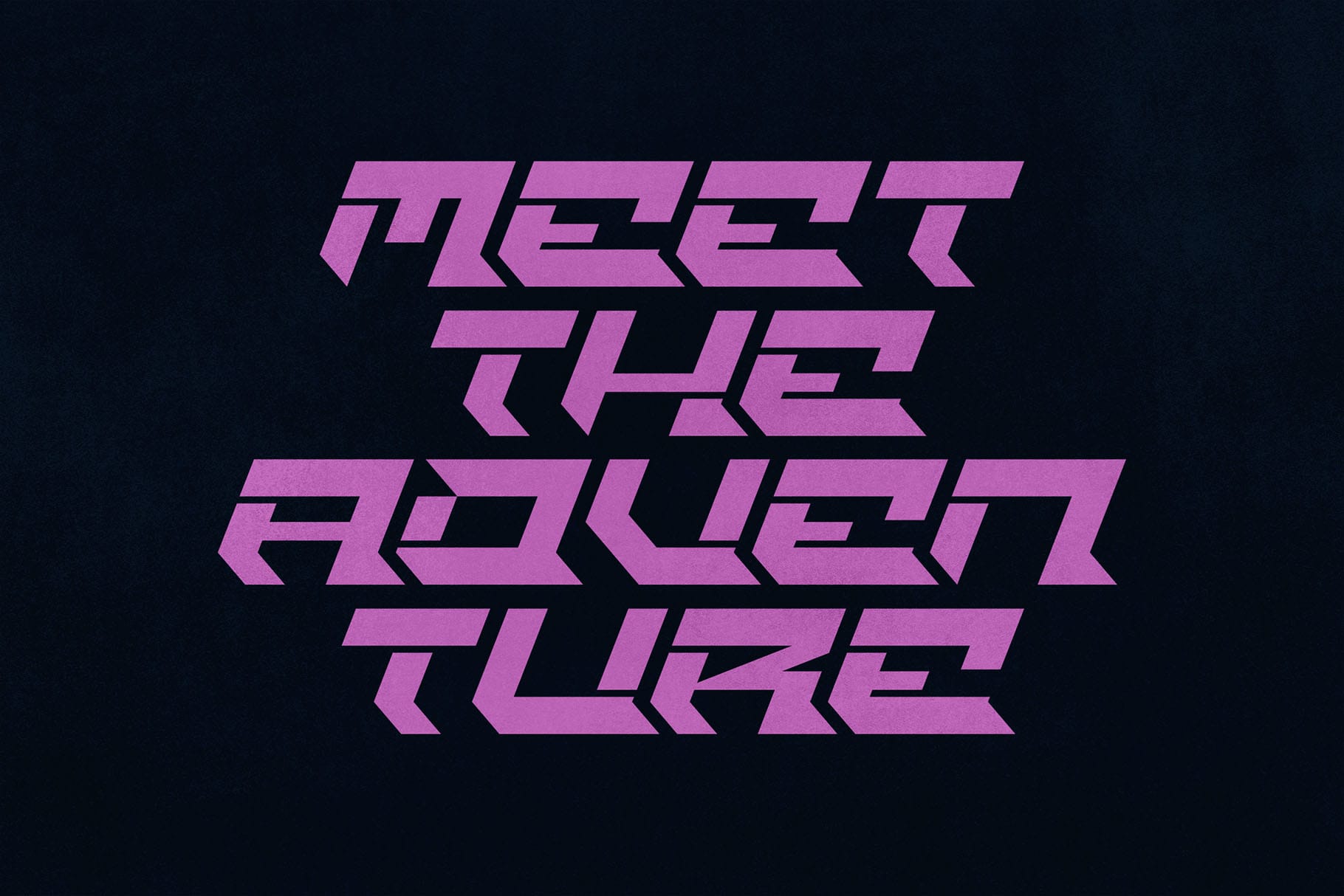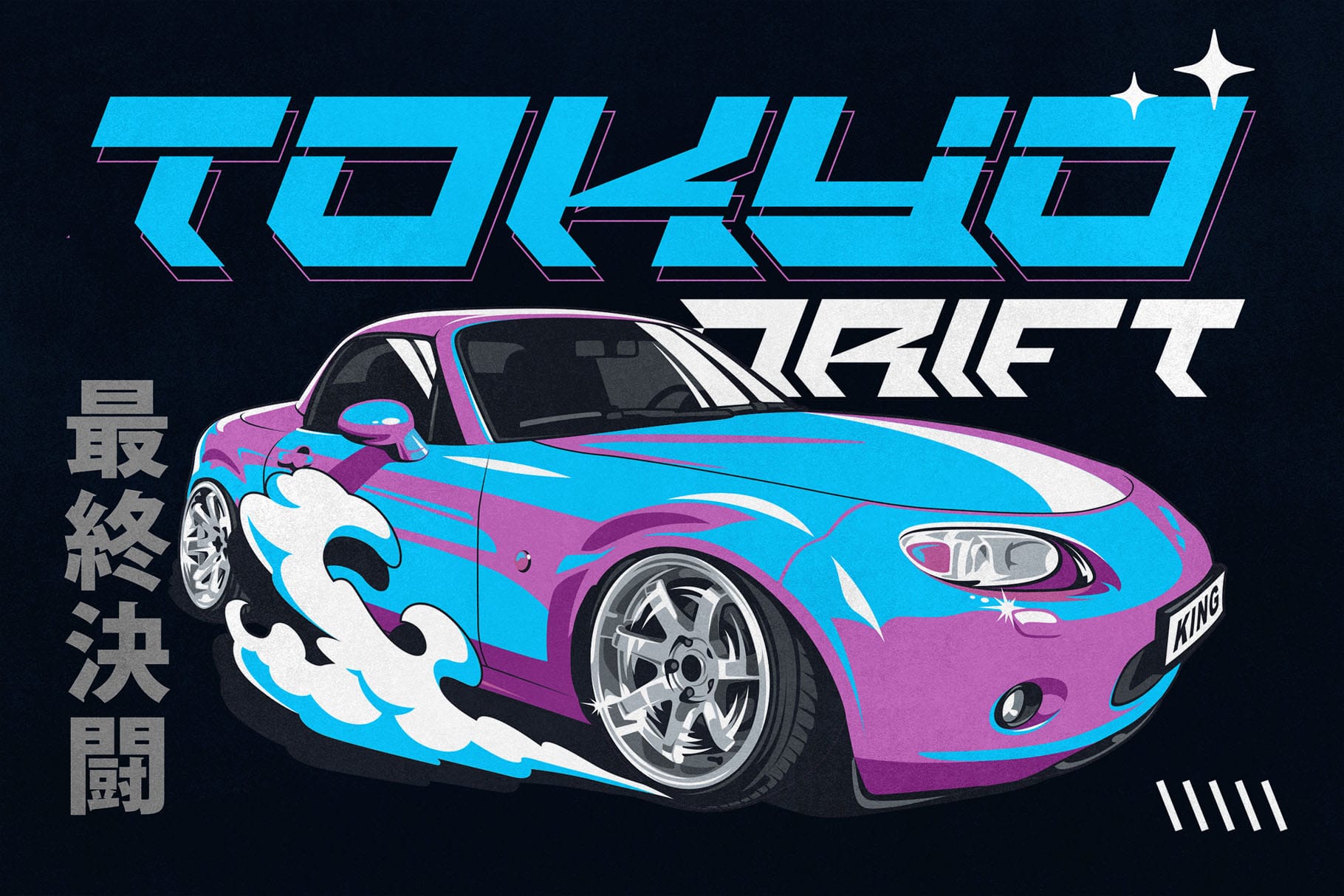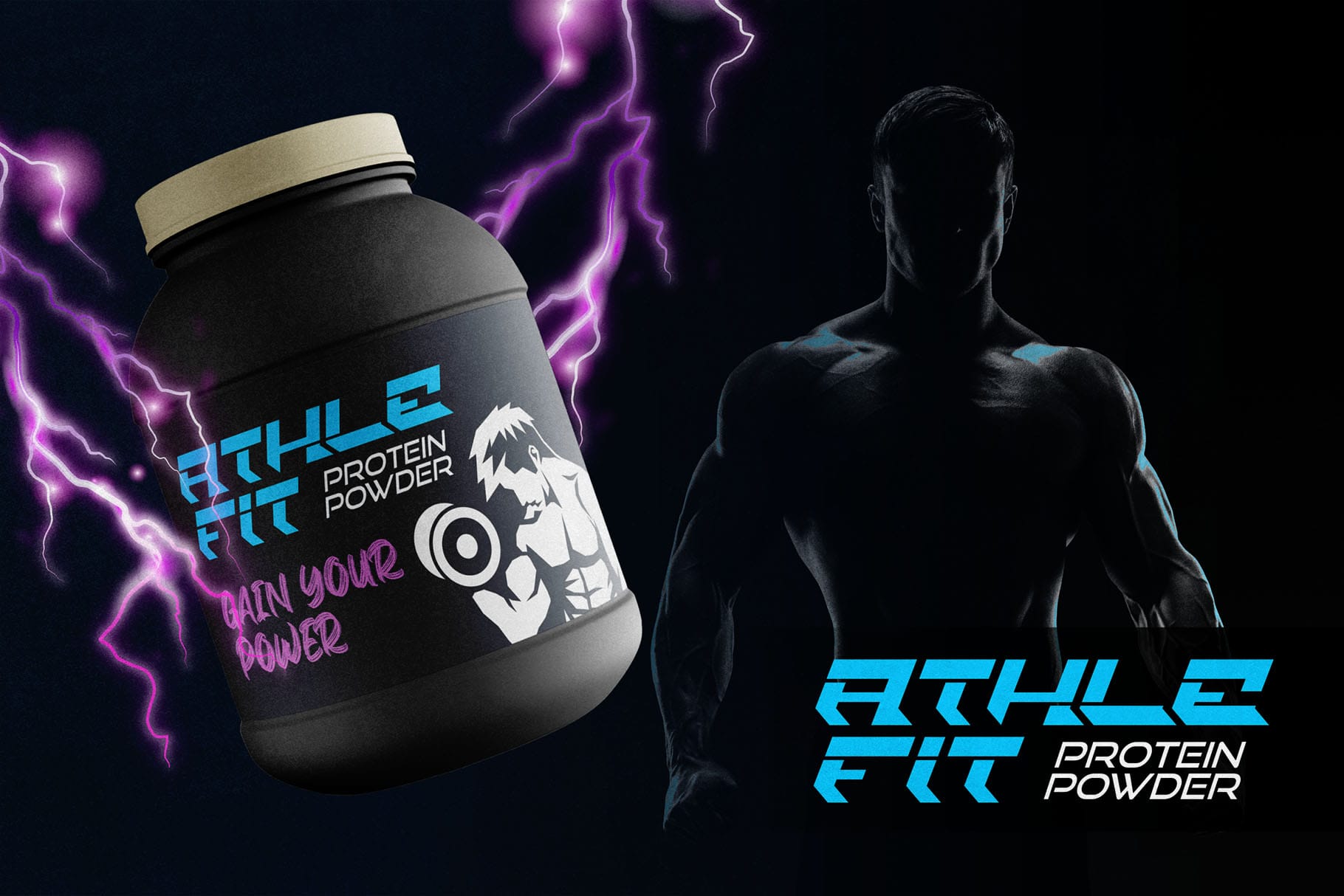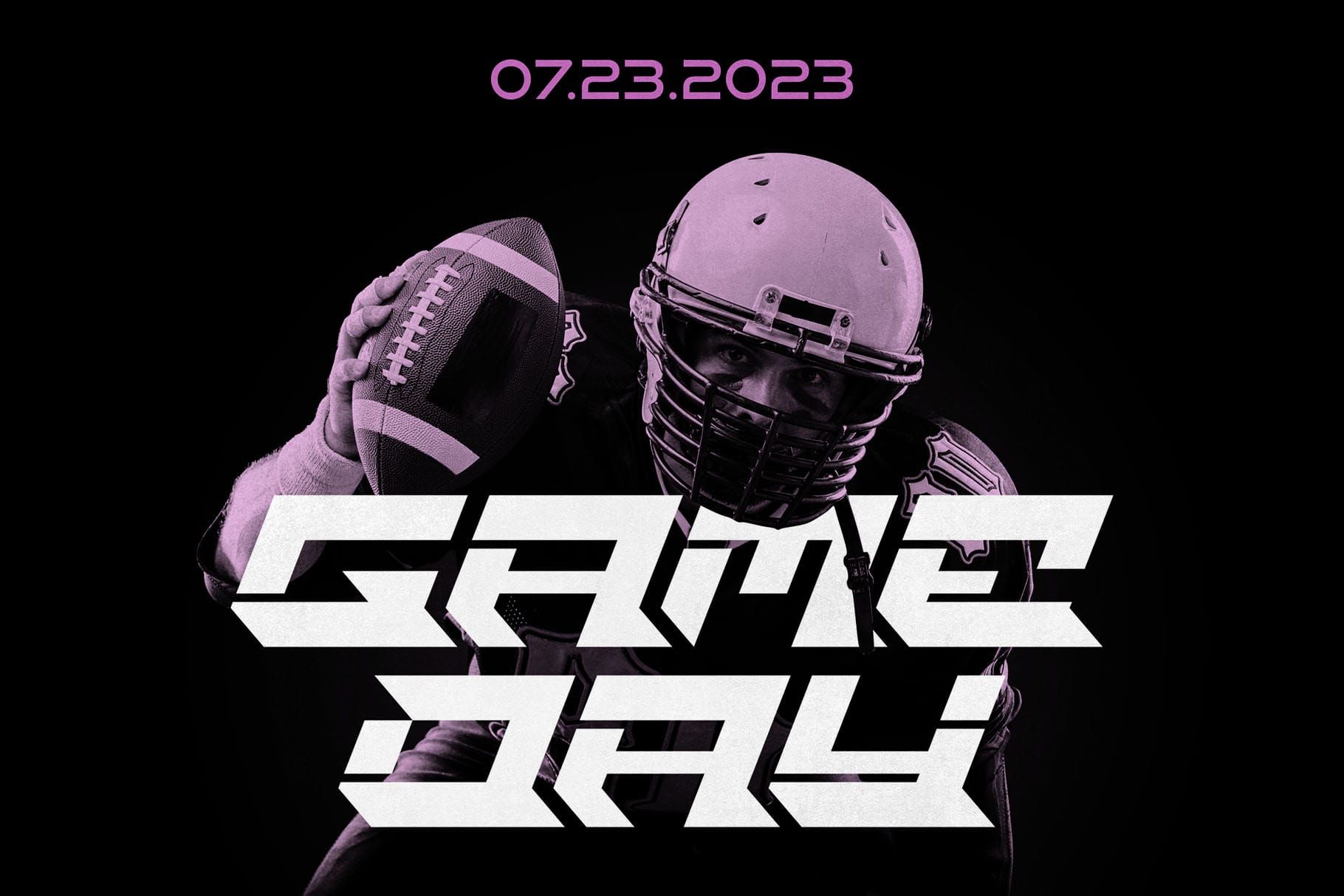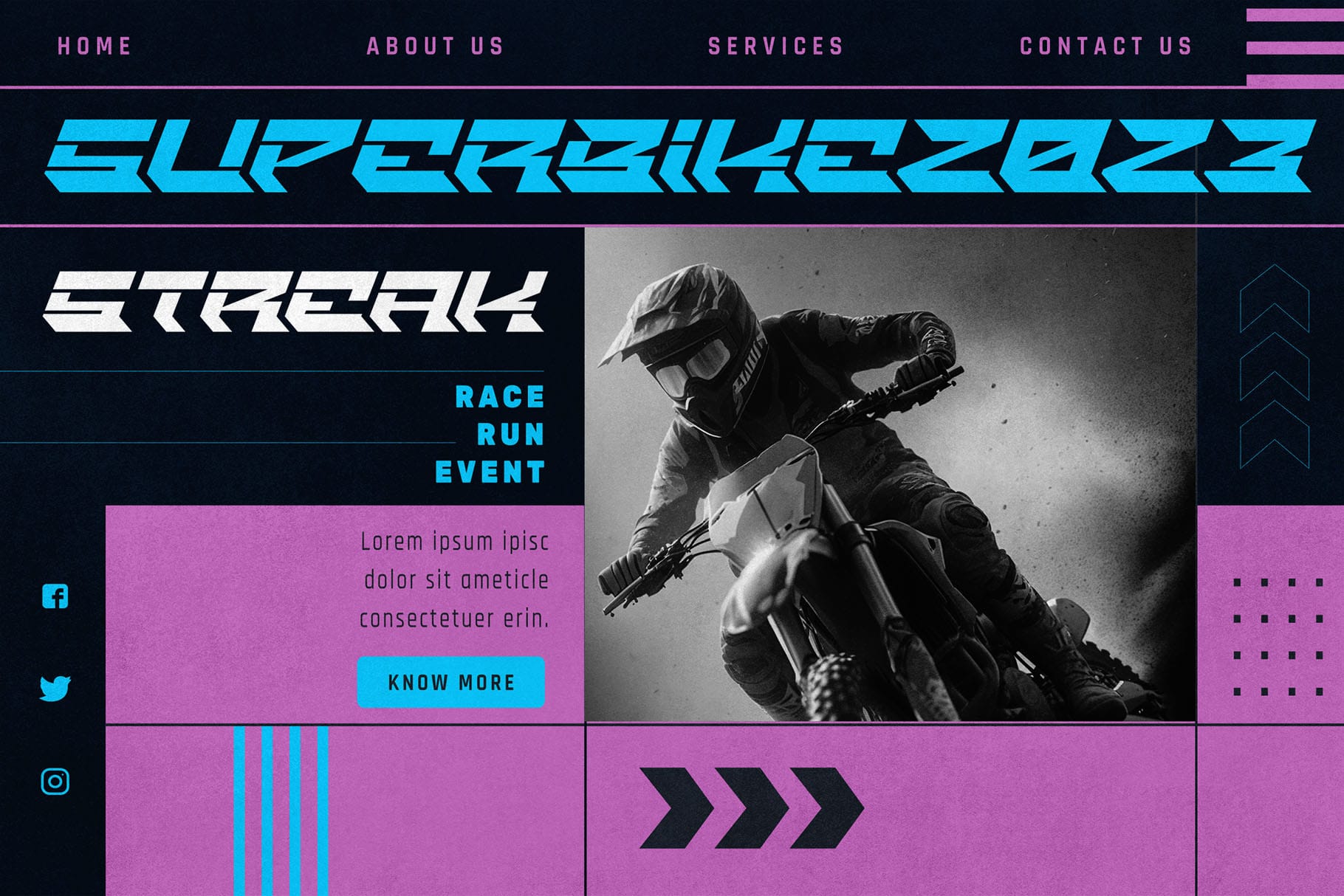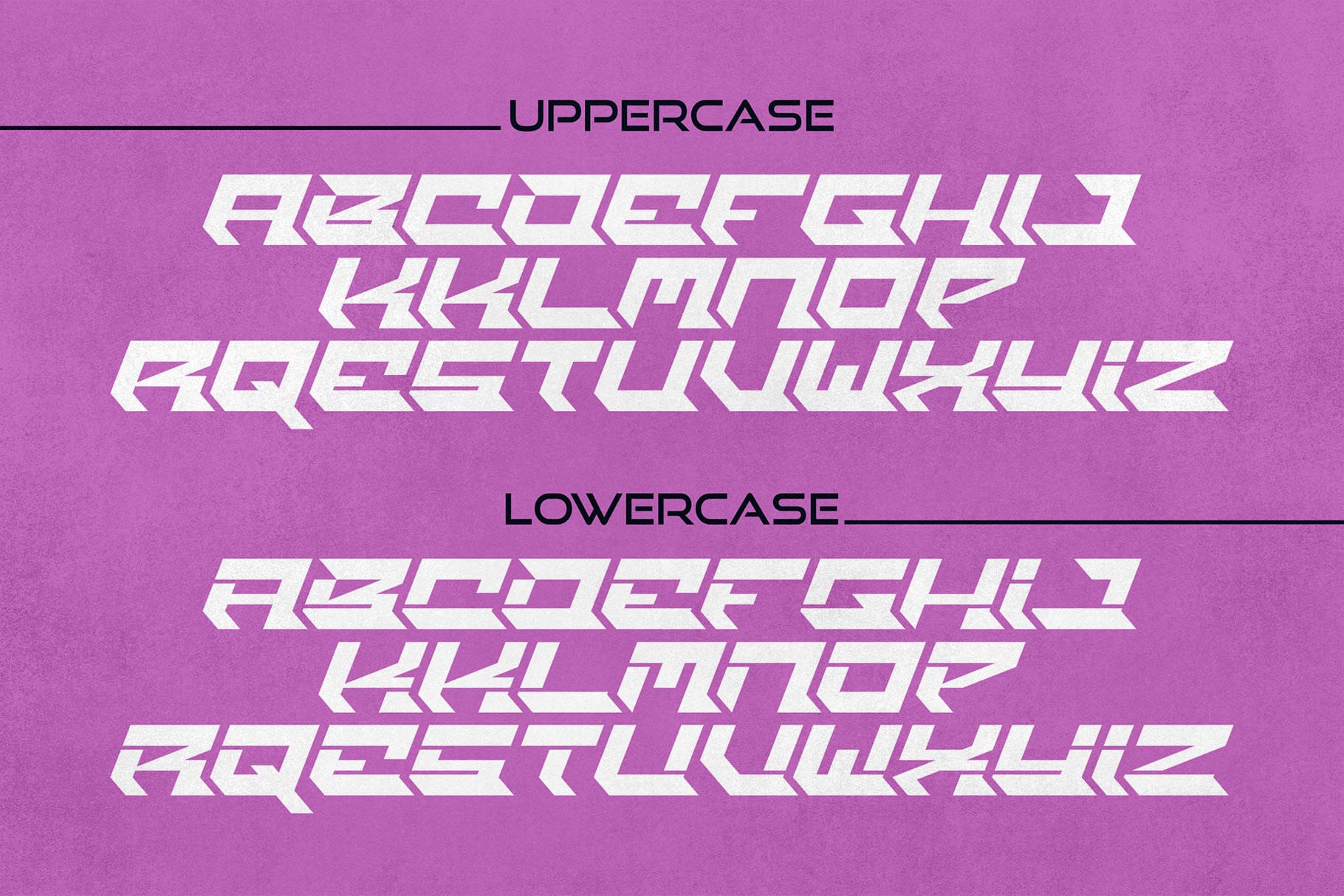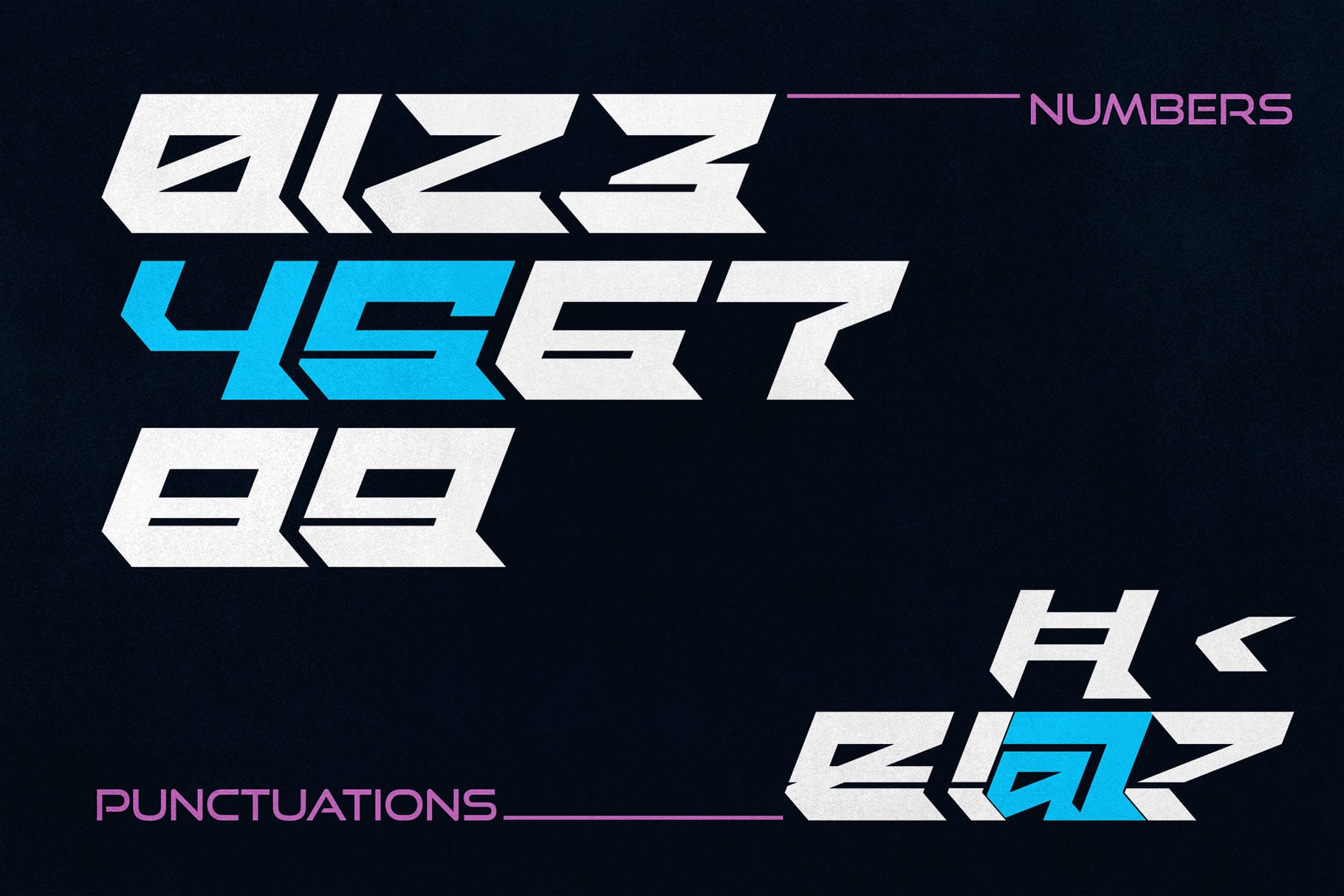
Nighty Racer – Futuristic Racing Font for Bold Speed Design
In the world of design, typography has the power to convey speed, energy, and futuristic vibes all at once. That is exactly what Nighty Racer – Futuristic Racing Font delivers. Built with sleek curves, extended strokes, and a bold racing-inspired design, this typeface captures the thrill of motion and the confidence of modern aesthetics.
If you want to create posters, esports branding, gaming visuals, or logos that scream speed, this futuristic racing font is your best weapon. From digital campaigns to real-world events, Nighty Racer ensures your message is powerful, futuristic, and unforgettable.
Futuristic Racing Font with Modern Energy
Nighty Racer isn’t just bold—it’s futuristic. This futuristic racing font is designed to bring adrenaline into your projects. The sleek extended letters resemble speed lines, while its futuristic geometric base ensures clarity. The result is a typeface that communicates energy and modernity in every word.
For automotive branding, racing tournaments, esports visuals, or technology-inspired campaigns, Nighty Racer is the perfect match. It speaks of movement and progress—ideal for audiences who crave excitement and innovation.
Key Features of Nighty Racer – Futuristic Racing Font
When you invest in a typeface, you need reliability as much as style. Here’s why Nighty Racer stands out:
- Uppercase & Lowercase: Full set for versatile designs
- Numbers & Punctuations: Ready for professional use in headlines and layouts
- Multilingual Support: Extended Latin coverage for global design projects
- Futuristic Racing Style: Perfectly built for motion-inspired themes
- High Readability: Maintains clarity across large and small scales
Why Designers Love Nighty Racer
Designers often struggle to find fonts that balance futuristic appeal with readability. Nighty Racer solves that problem. This futuristic racing font has sharp angles, extended lines, and smooth curves that make it look fast, but it never sacrifices clarity.
Professionals love it because:
- It makes logos instantly recognizable
- Posters and banners look bold and energetic
- It fits esports, gaming, and tech branding perfectly
- It pairs beautifully with both bold and elegant fonts for creative flexibility
Nighty Racer in Logos and Esports Branding
When designing for esports, gaming tournaments, or modern automotive logos, typography should reflect strength and speed. Nighty Racer’s futuristic racing font design delivers that impact instantly. It works beautifully as the main wordmark or in combination with icons.
Nighty Racer in Posters and Event Graphics
Event posters must grab attention in seconds. With Nighty Racer, your futuristic racing font headlines will be impossible to ignore. Whether you’re promoting a racing event, a music festival, or a gaming launch, its dynamic shapes dominate any layout.
Futuristic Racing Font in Digital Media
Social media and digital campaigns thrive on visuals that look powerful and modern. Nighty Racer is built for this. Use it for YouTube thumbnails, Twitch overlays, esports ads, and website headers where impact is essential.
Its futuristic racing font style is versatile enough for bold headlines yet clear enough for taglines and captions. You can try it out directly online—Try here.
- Character Set: Uppercase, Lowercase, Numbers, Punctuations
- Category: Futuristic Racing Font
- Best Uses: Esports, Gaming, Automotive Branding, Logos, Posters, Event Campaigns
Why Nighty Racer is the Futuristic Racing Font You Need
Typography trends are moving toward futuristic and dynamic styles, especially in esports and digital branding. Nighty Racer is at the center of this trend. As a futuristic racing font, it delivers speed, boldness, and clarity—all in one.
With its extended style, multilingual support, and flexible file formats, it’s ready for global creative work. Designers who want to stand out in competitive markets will find Nighty Racer indispensable.
Nighty Racer – Futuristic Racing Font is not just a typeface; it’s a design statement. With bold strokes, racing-inspired details, and futuristic clarity, it empowers logos, posters, and esports visuals to reach their full potential.